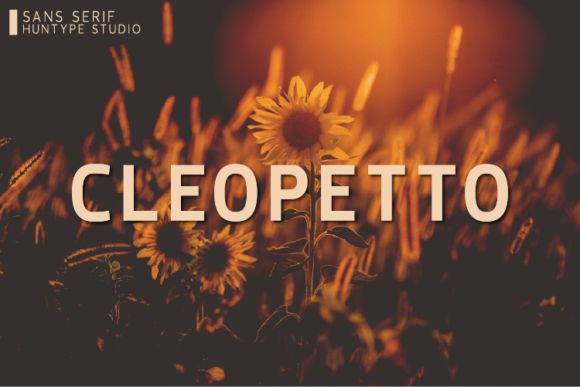
Journey into the Realm of Nature's Elegance with Cleopetto, the Sans Serif Font that Awakens Rustic Charm
In a world longing for authenticity, Cleopetto emerges as a captivating sans serif font, a testament to the enduring allure of nature's artistry. Its clean lines and organic curves evoke the essence of outdoor adventures, whispering tales of campfires and starlit nights. Embrace the spirit of exploration and let your designs take flight with this font that embodies the rustic charm and untamed beauty of the wilderness.
Discover a Myriad of Creative Expressions
Cleopetto's versatility knows no bounds, effortlessly adapting to a symphony of creative endeavors. Whether you're crafting logos that emanate the ruggedness of the great outdoors, designing brochures that capture the essence of forest adventures, or creating website layouts that evoke the tranquility of nature, Cleopetto stands as your steadfast companion. Its adaptability extends to social media posts, business cards, invitations, and myriad other projects, each carrying a touch of the wild.
Feel the Pulse of Nature in Every Letterform
With Cleopetto as your artistic ally, each letterform pulsates with the energy of the natural world. Its sans serif strokes, reminiscent of windswept trees, dance across your designs, carrying a message of harmony and balance. The kerning, meticulously crafted to mimic the rhythm of nature's heartbeat, ensures effortless readability, inviting your audience to immerse themselves in your creative vision.
Ignite Your Passion, Unleash Your Creativity
In the hands of a creative spirit, Cleopetto becomes a catalyst for extraordinary designs that ignite passion and spark conversations. Its ability to blend seamlessly with imagery of mountains, forests, and rivers empowers you to craft visual narratives that resonate with your audience, transporting them to a world of adventure and tranquility. Let Cleopetto be your muse, guiding you towards captivating designs that leave a lasting impression.
A Font Rooted in Nature, Nurtured by Passion
Cleopetto is the brainchild of Huntype, a creative foundry renowned for its unwavering commitment to excellence. Each font they release is a testament to their dedication to the craft, meticulously designed to fulfill the needs of discerning creatives. Cleopetto is no exception, crafted with the utmost care and attention to detail, ensuring it stands as a timeless addition to your font library.